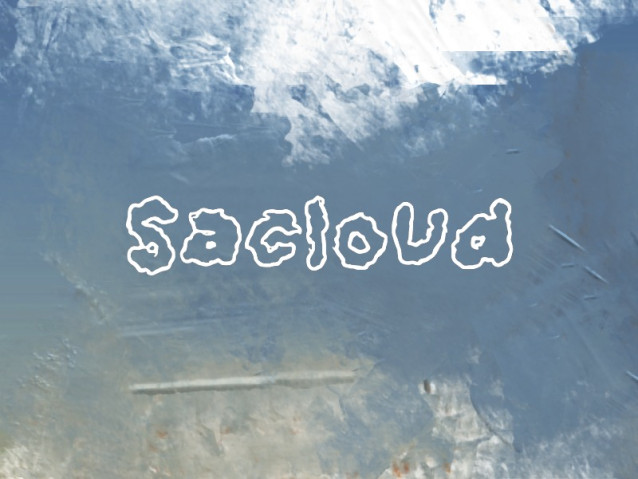
Sacloud Font
Sacloud Font is a simple and modern display font suitable for quotes, logos, headings, titles, and many more. Use it on any of your creative projects, and your designs will become outstanding!